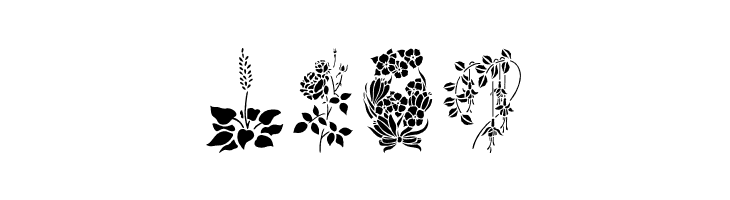
Ornamental floral stencil illustrations with bold, detailed silhouettes.
Decorative floral stencil font with unique plant illustrations for each character.